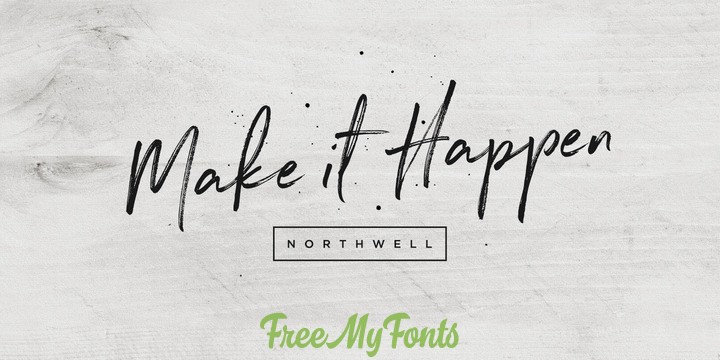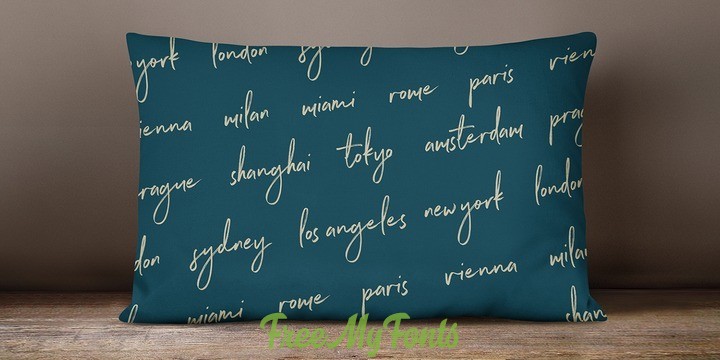
About this font family
Introducing: Northwell! A rustic, dapper, handwritten font with a personal charm. With quick dry strokes and a signature style, Northwell is perfect for branding projects, homeware designs, product packaging—or simply as a stylish text overlay to any background image.
Northwell includes a complete set of alternate characters in the Stylistic Alternates set, as well as a set of 20 hand-drawn swashes, the perfect finishing touch to underline your Northwell text. Ligatures are also available for several lowercase characters.